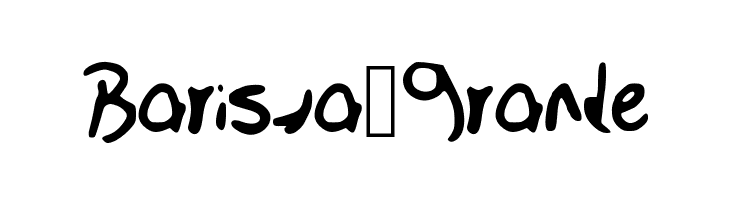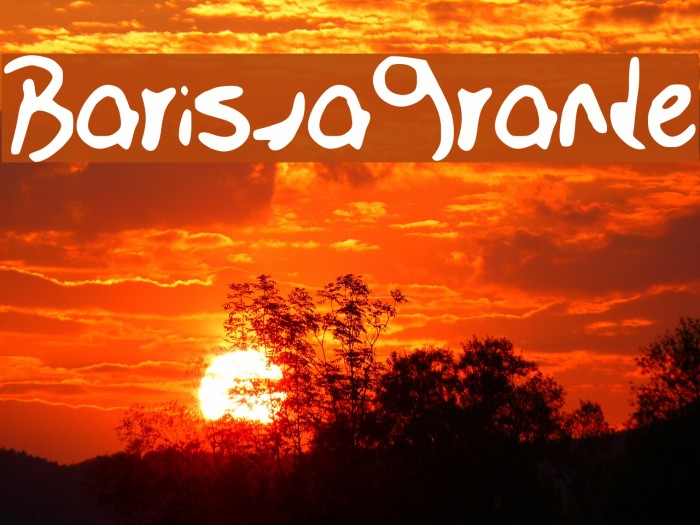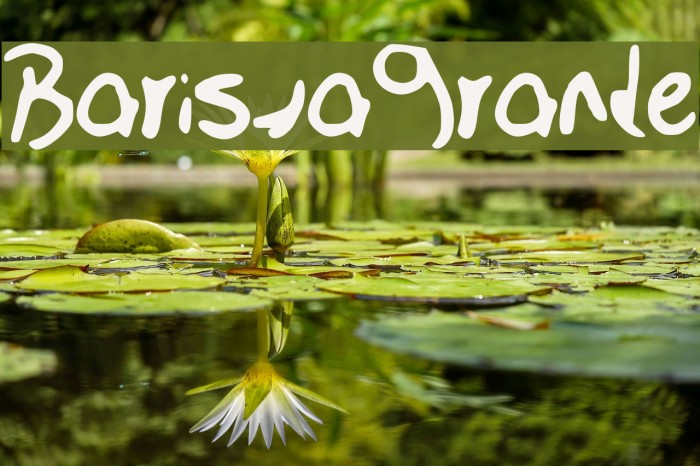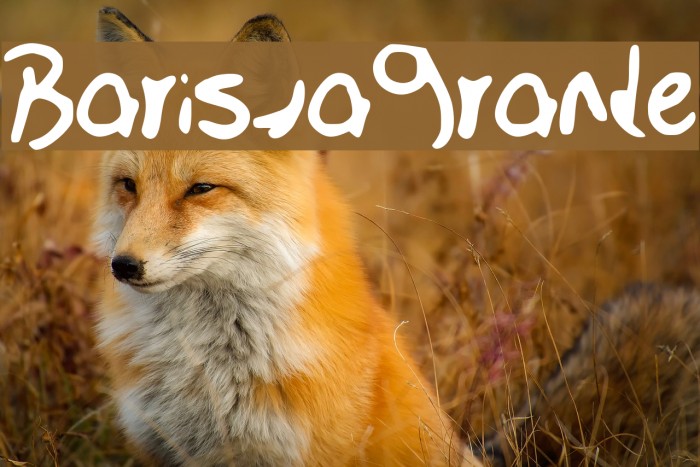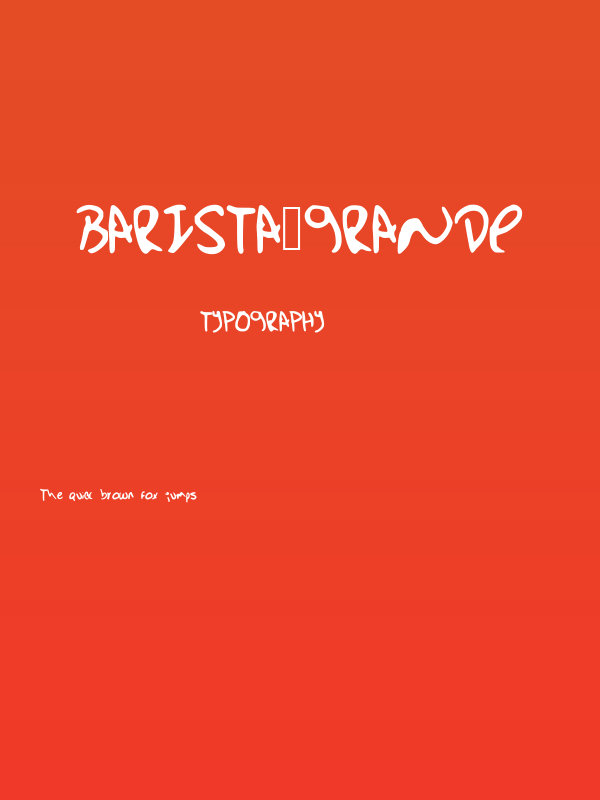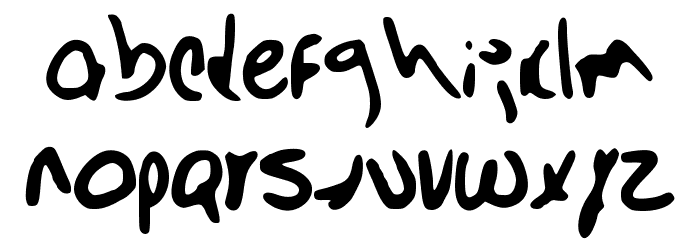
Barista_Grande Font
Barista_Grande Description
This font exudes a casual, handwritten style with a playful and dynamic character. The letters are bold and slightly irregular, giving them a lively and spontaneous appearance. The strokes are thick and vary in width, adding a sense of movement and energy. The uppercase and lowercase letters maintain a consistent style, with rounded edges and a slightly slanted orientation. Numbers and special characters follow the same aesthetic, ensuring a cohesive look across all elements. The overall design is informal and approachable, making it suitable for creative and fun projects.
| Proposed Projects | Ideal for greeting cards, children's books, playful branding, and casual invitations. |